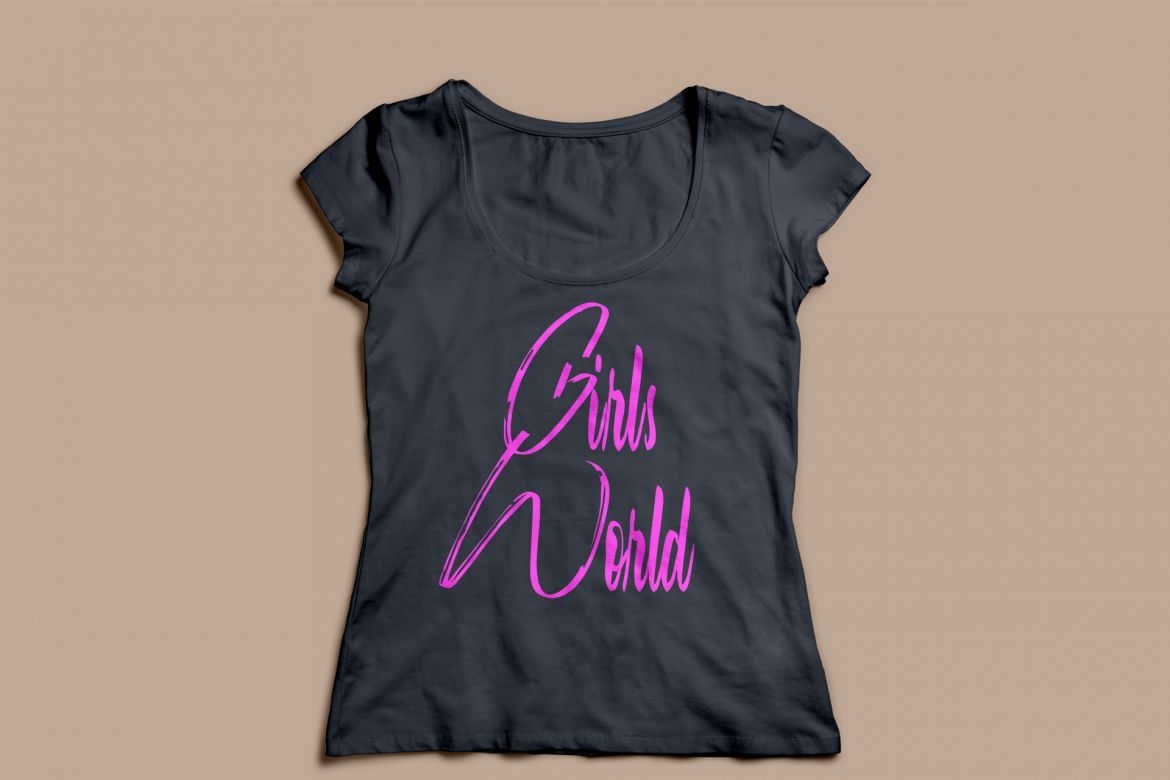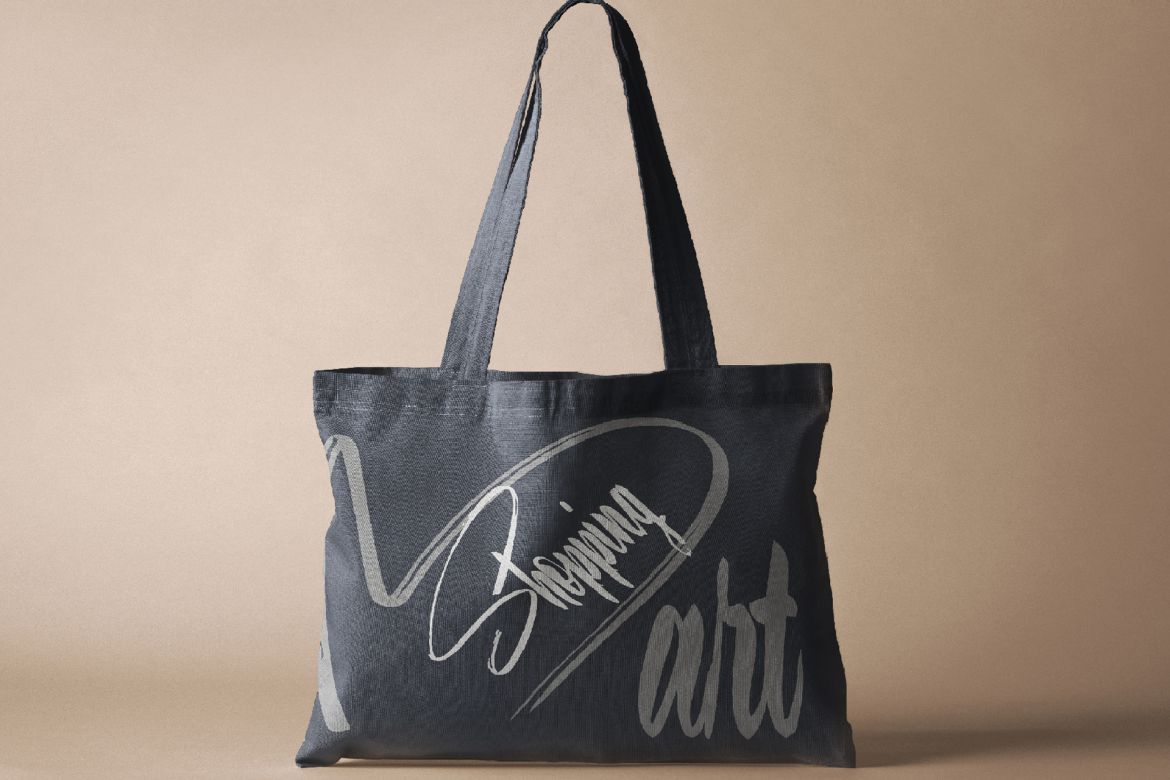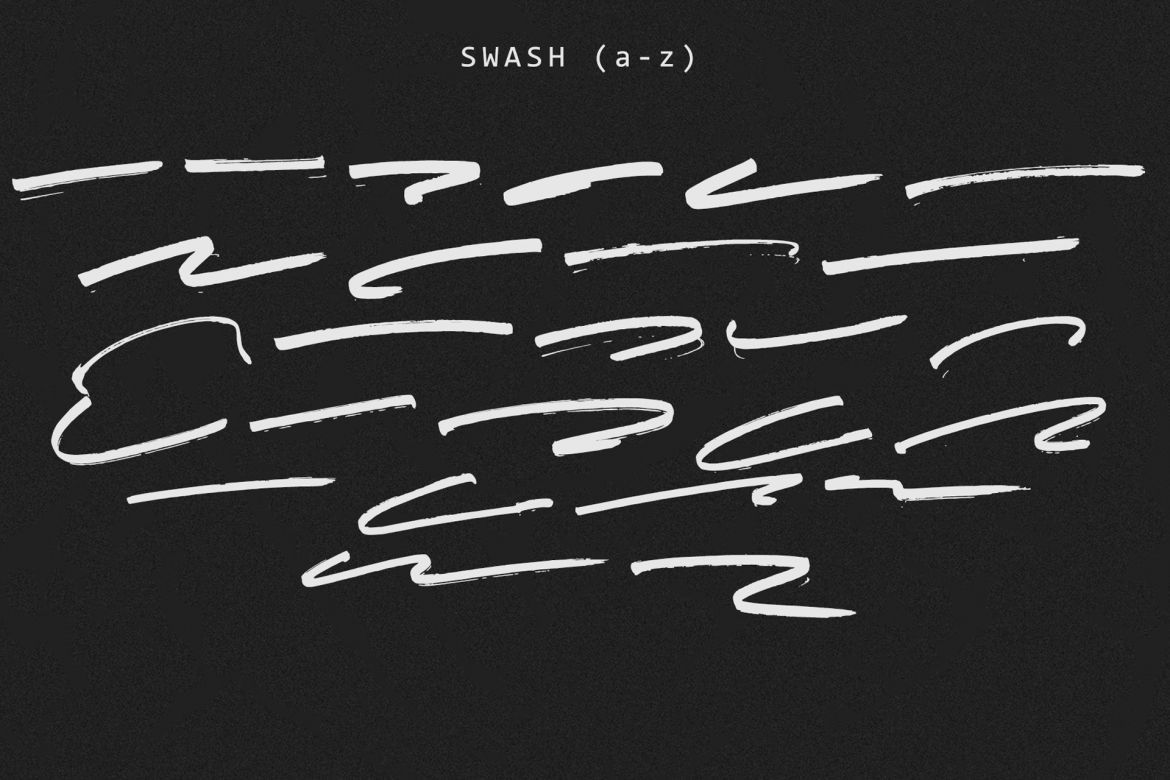
Jason Statan Brush Font
Jason Statan is a fun and bold handwritten font with an urban twist. Get inspired by its lovely charm, and turn any design project into a stand out!